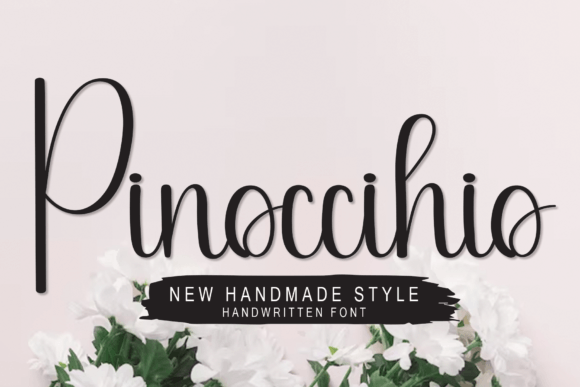
Prepare to be captivated by Pinoccihio, the exquisite script font family designed to elevate your beauty brand's presence. Created by the masterful Roronoa zoro.S.P.D, this font exudes elegance and sophistication like no other. Pinoccihio isn't just a font; it's an artistic masterpiece that will transform your creative visions into stunning realities.
Picture this: Your beauty brand's logo, adorned with Pinoccihio's graceful curves, commands attention and leaves a lasting impression. Your social media posts come alive with captivating visuals, each word dancing elegantly across the screen, drawing your audience's gaze. Your website radiates elegance, with Pinoccihio's timeless style guiding your visitors through an unforgettable journey.
Pinoccihio's beauty lies in its versatility. Whether you're designing delicate branding elements or crafting heartfelt messages, this font adapts seamlessly to your creative needs. Its flowing handwritten style adds a touch of personality and charm to every project, evoking emotions and creating connections.
With Pinoccihio, you'll discover a font that goes beyond aesthetics. Its smooth, elegant lines embody the essence of beauty, inviting your audience to experience a brand that truly understands their desire for refinement and grace.
Don't settle for ordinary fonts that blend into the background. Choose Pinoccihio, the script font that ignites your creativity and sets your beauty brand apart. Embrace the elegance, embrace the beauty, and elevate your brand to new heights.